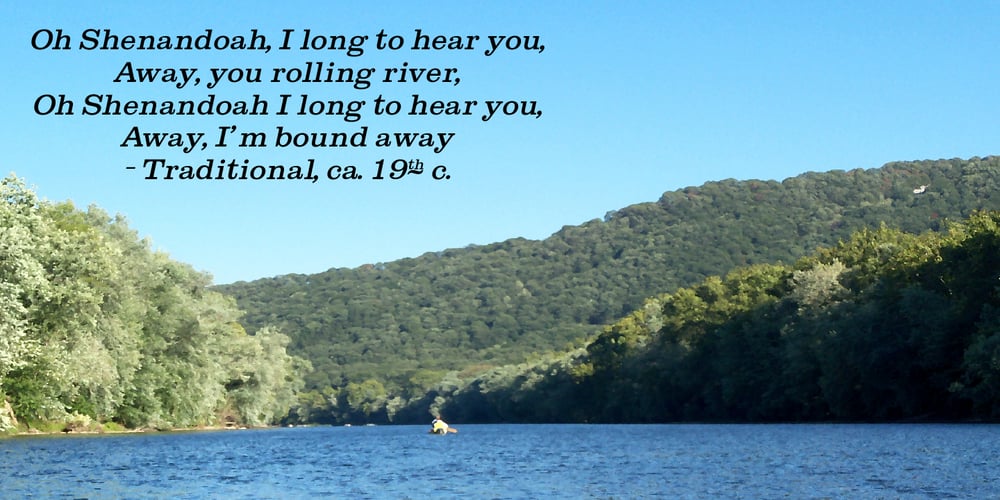
Shenandoah Clarendon Font Family was designed by Rob Barba and published by Megami Studios. Shenandoah Clarendon contains 6 styles and family package options. With a hint of flair and some nice update touches, Shenandoah Clarendon is a beautiful and modernized revival of the traditional Clarendon font. Adding new glyphs and measurements into the mix, it’s sure to add a distinctive touch to your works!